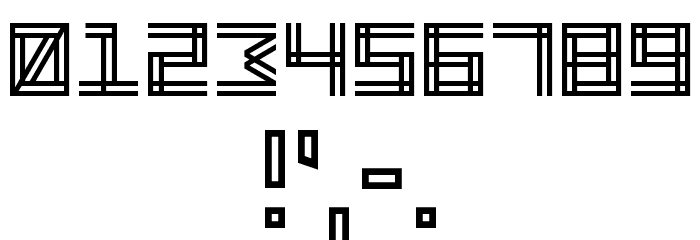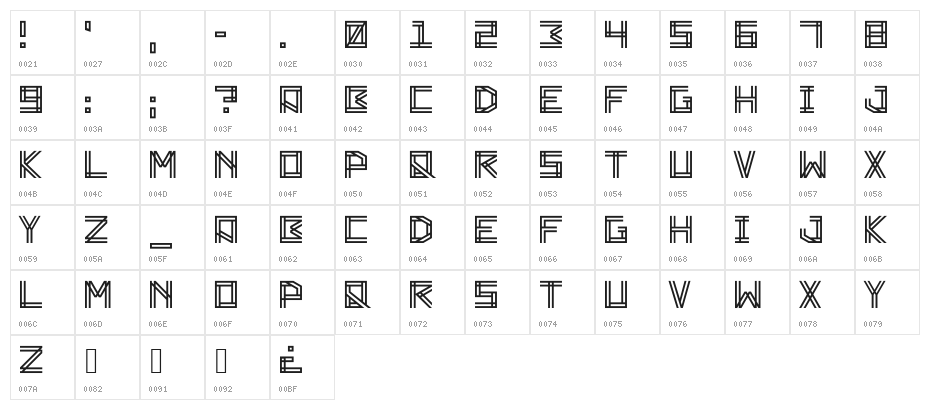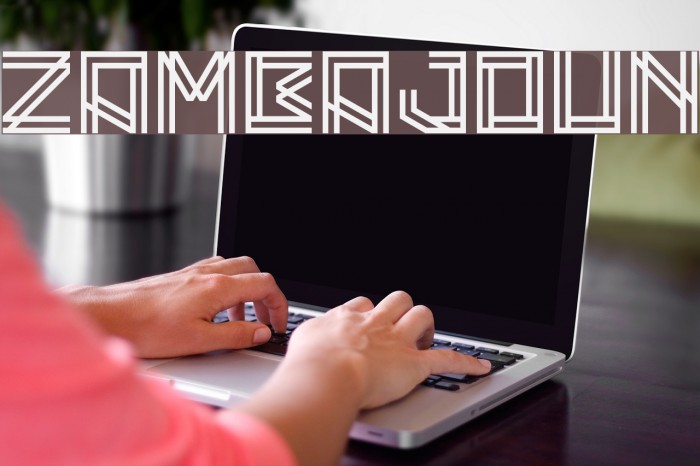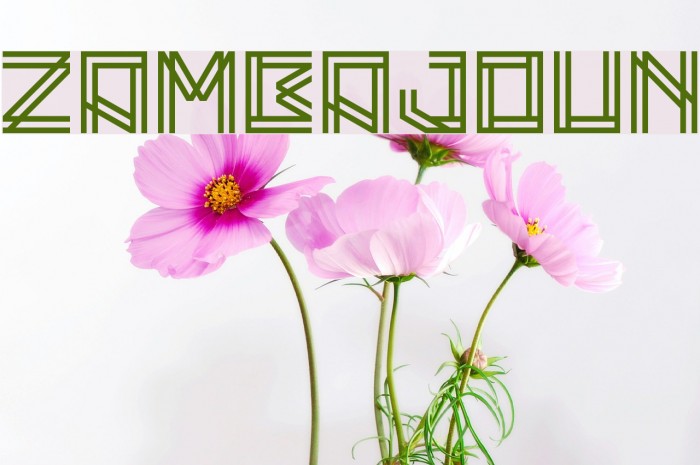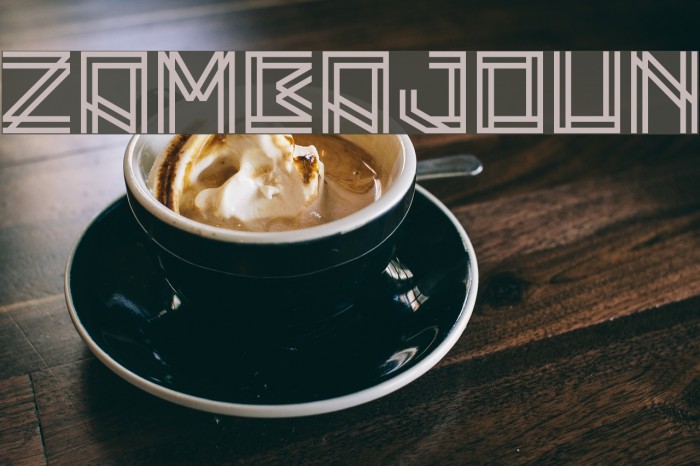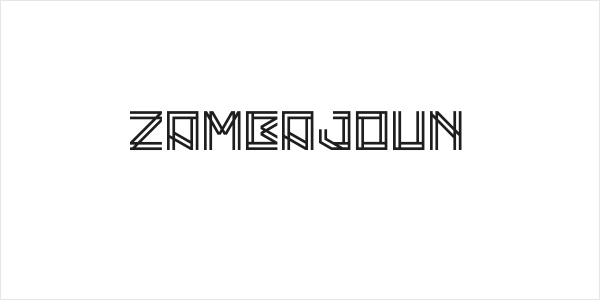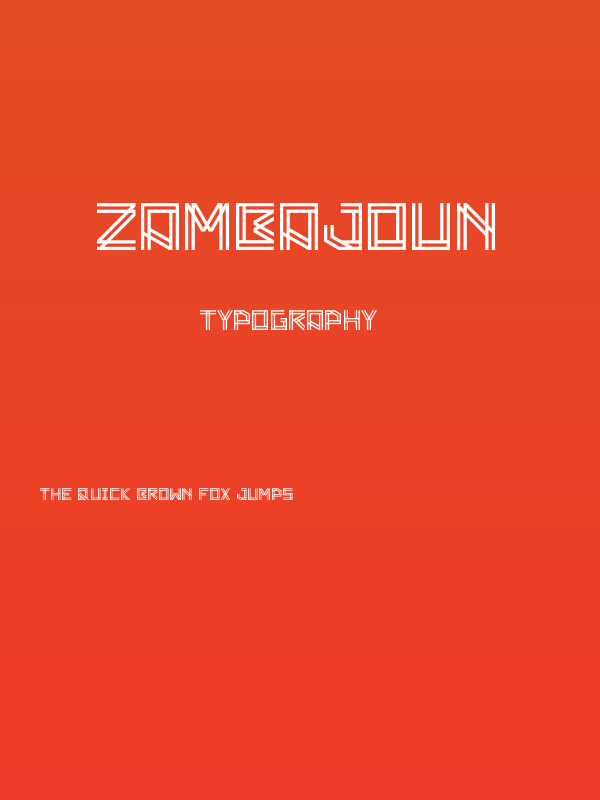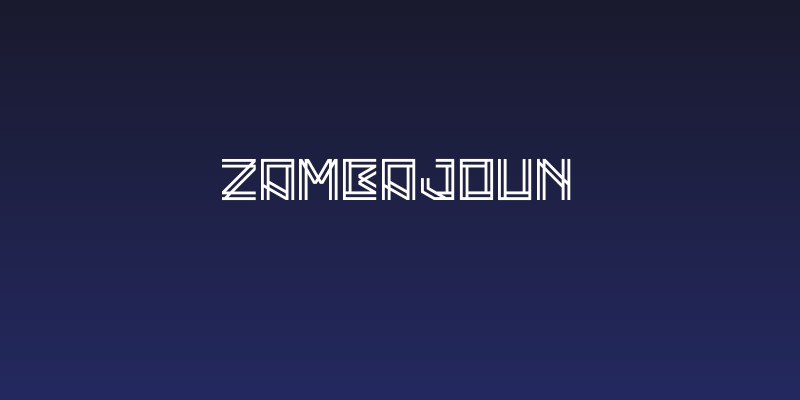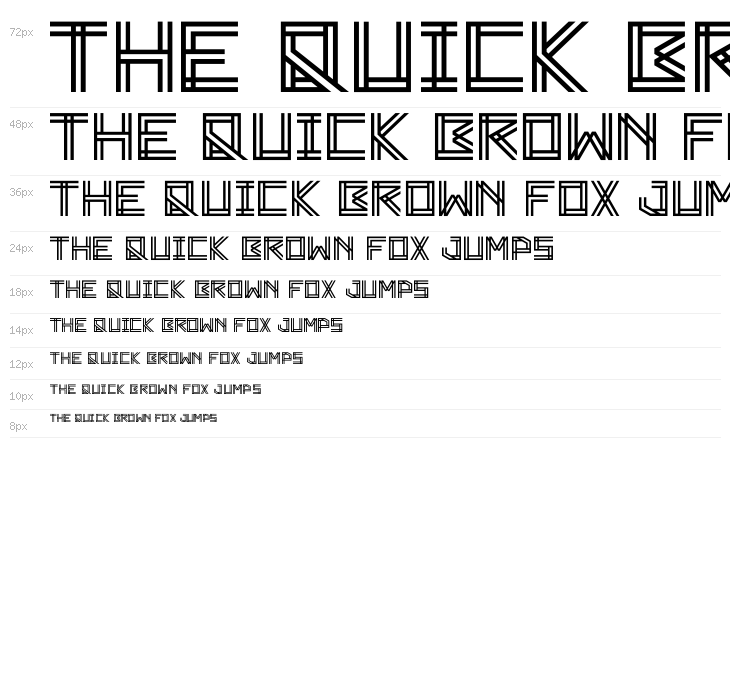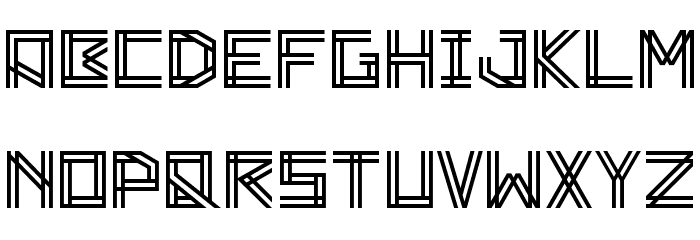
Zambajoun Font
This font features a geometric and futuristic design with a strong emphasis on angular lines and sharp edges. Each character is constructed with multiple parallel lines, creating a layered effect that adds depth and complexity. The uppercase letters are bold and striking, while the numbers and special characters maintain the same intricate style. The overall appearance is modern and tech-inspired, making it suitable for digital and sci-fi themed projects. The consistent use of line thickness across all characters ensures a cohesive look, while the unique structure of each letter adds a distinctive flair.